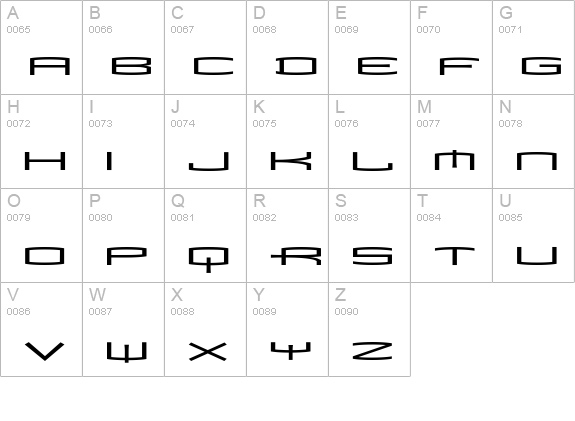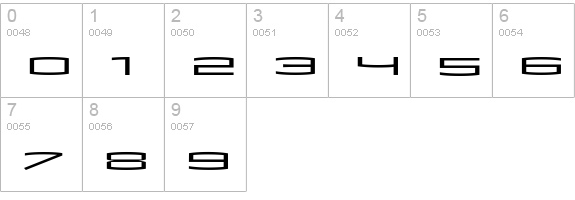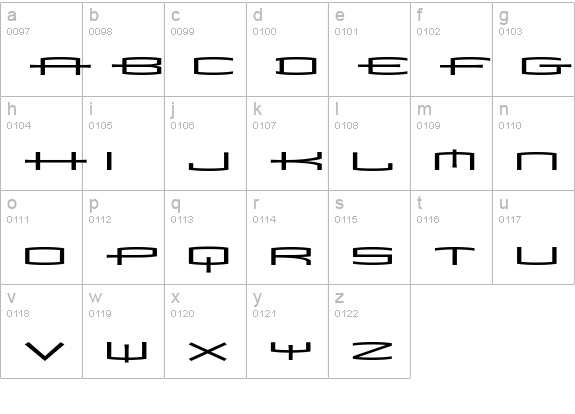
MataRegular Font Details
MataRegular is a versatile and stylish font that exudes elegance and sophistication. With its clean and crisp lines, it is perfect for a wide range of design projects, from branding and logos to editorial layouts and web designs. This font offers a balanced mix of modern and classic elements, making it suitable for both contemporary and traditional designs. The smooth curves and well-proportioned letterforms add a touch of refinement to any project. MataRegular is available in a wide range of weights and styles, allowing for endless creative possibilities. Whether you're looking for a bold statement or a subtle touch, this font has got you covered. One of the best things about MataRegular is that it is freely available to download at FontsMarket.com. This means that you can enjoy the beauty and versatility of this font without any cost. Simply visit FontsMarket.com and start using MataRegular in your designs today. So why wait? Take your designs to the next level with MataRegular. Download it for free at FontsMarket.com and discover the endless possibilities this font has to offer.